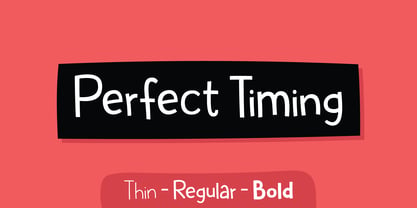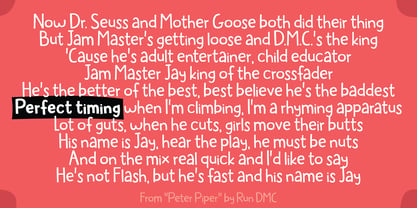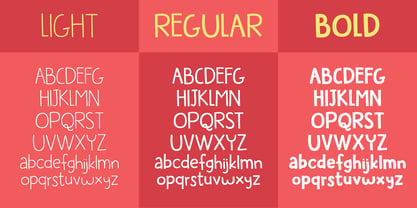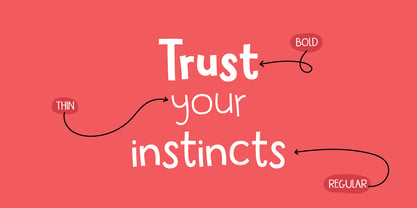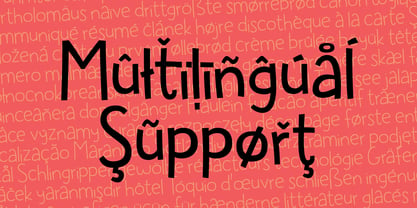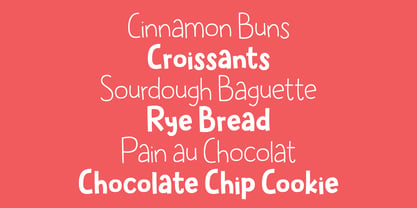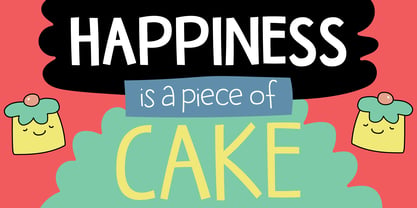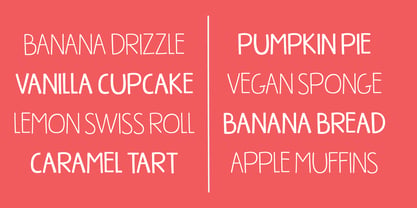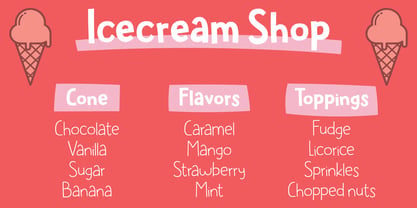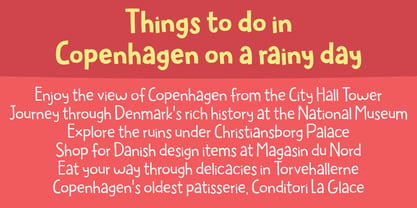
Perfect Timing
Perfect Timing is my playful and vivid typeface - originally handdrawn, and then digitised manually by hand. Perfect Timing comes in Thin, Regular and Bold, and these versions really works well together. That being as masive text in a book, shoutouts for a cool sticker or for the menu of some lovely ice cream shop :)
Whatever you plan to create, using Perfect Timing, you get the same result every time: A natural and friendly expression, an easy approachable look and a gentle quirky (yet legible in all versions and sizes!) balanced structure!
Features:
I have included the Standard Ligatures - the well-known ligatures such as ff, fi, fl, ffi, ffl
Subscript and Superscript
Normally typedesigners resizes the numbers to make Subscript and Superscript. I do that on occasions as well, but in this case I have drawn the numbers, instead of resizing them. That way they appear more natural, organic and unique.
Fractions are nice having available. You skip the work of resizing the numbers yourself, because I have done all the work for you!
Multilingual support
This font comes with extensive multilingual support, and supports loads of different languages.